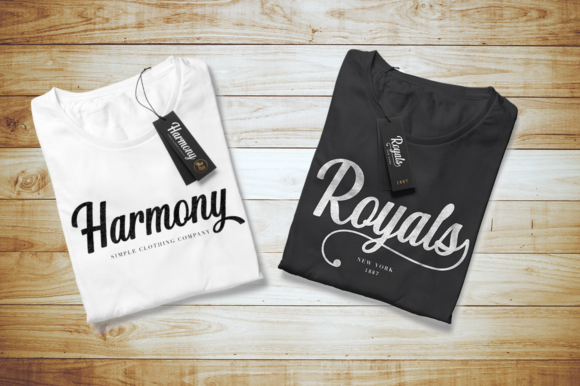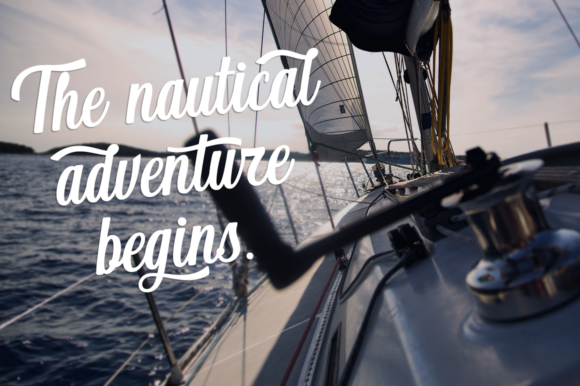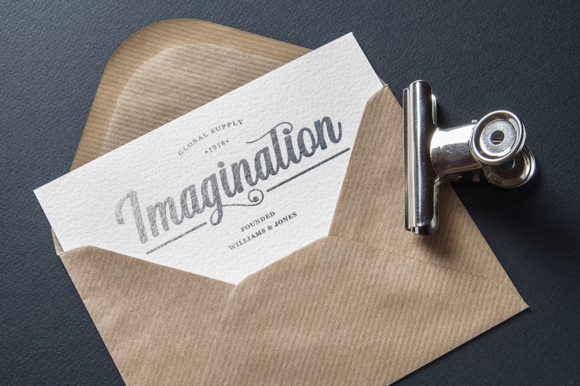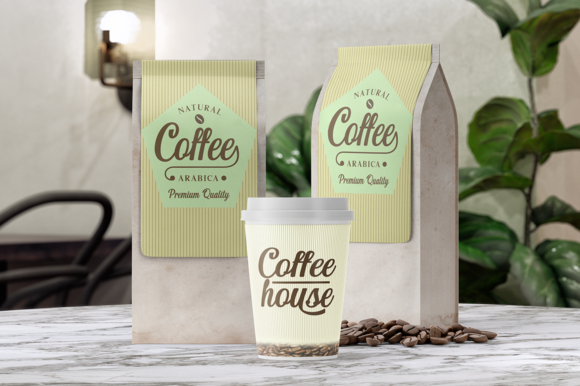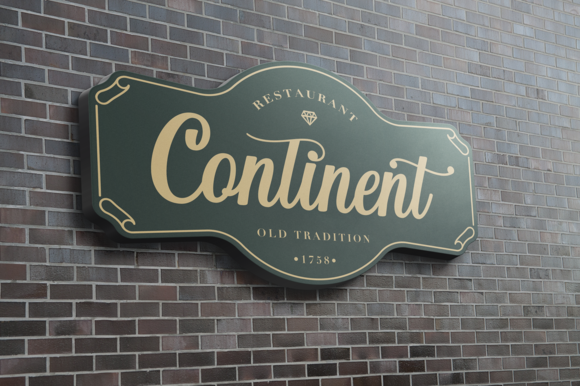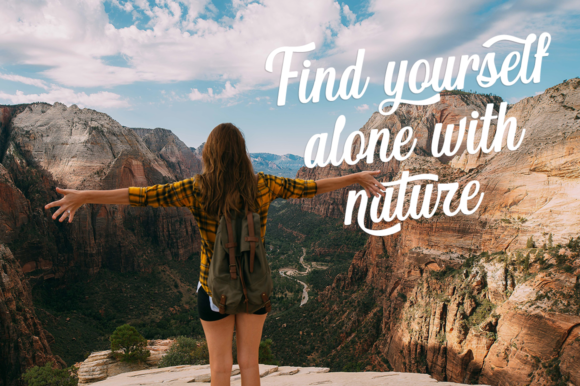
Gitanes Font: Adding a Romantic Spark to Your Designs
Gitanes is a lovely handwritten font with a bold and authentic feel. It will add a romantic spark to any design idea, making it perfect for designers and crafters looking to create unique and captivating visual content. In this article, we’ll explore the features and benefits of Gitanes Font, and how it can elevate your designs to the next level.
The Charm of Gitanes Font
Gitanes Font is a beautifully crafted handwritten font that exudes a sense of romance and elegance. Its bold and authentic feel makes it perfect for designs that require a personal touch. The font’s unique characteristics, such as its flowing strokes and subtle imperfections, give it a humanized feel that is sure to capture the attention of your audience.
Key Features of Gitanes Font
- Handwritten style: Gitanes Font is a genuine handwritten font, making it perfect for designs that require a personal and authentic touch.
- Bold and authentic feel: The font’s bold and authentic feel makes it perfect for designs that require a strong and confident look.
- Romantic spark: Gitanes Font adds a romantic spark to any design idea, making it perfect for designs that require a touch of elegance and sophistication.
- Unique characteristics: The font’s unique characteristics, such as its flowing strokes and subtle imperfections, give it a humanized feel that is sure to capture the attention of your audience.
Benefits of Using Gitanes Font
Using Gitanes Font in your designs can have numerous benefits. Here are a few:
- Stand out from the crowd: Gitanes Font is a unique and distinctive font that will help your designs stand out from the crowd.
- Add a personal touch: The font’s handwritten style and bold and authentic feel make it perfect for designs that require a personal touch.
- Perfect for romantic designs: Gitanes Font is perfect for designs that require a romantic spark, such as wedding invitations, Valentine’s Day cards, and more.
Design Ideas Using Gitanes Font
Gitanes Font is a versatile font that can be used in a variety of design ideas. Here are a few:
- Wedding invitations: Gitanes Font is perfect for wedding invitations, adding a romantic spark to your design.
- Valentine’s Day cards: The font’s romantic feel makes it perfect for Valentine’s Day cards and other romantic designs.
- Branding and packaging: Gitanes Font can be used in branding and packaging designs to add a personal touch and stand out from the crowd.
- Social media graphics: The font’s bold and authentic feel makes it perfect for social media graphics, such as Facebook posts and Instagram stories.
Gitanes Font is a lovely handwritten font with a bold and authentic feel that will add a romantic spark to any design idea. Its unique characteristics, such as its flowing strokes and subtle imperfections, give it a humanized feel that is sure to capture the attention of your audience. With its numerous benefits and design ideas, Gitanes Font is perfect for designers and crafters looking to create unique and captivating visual content.